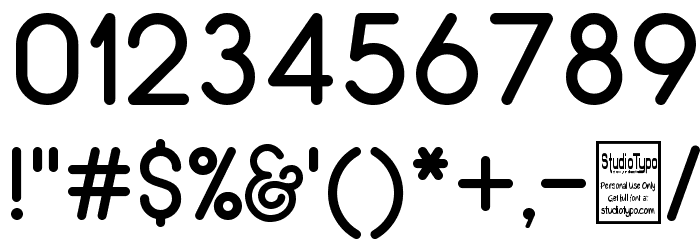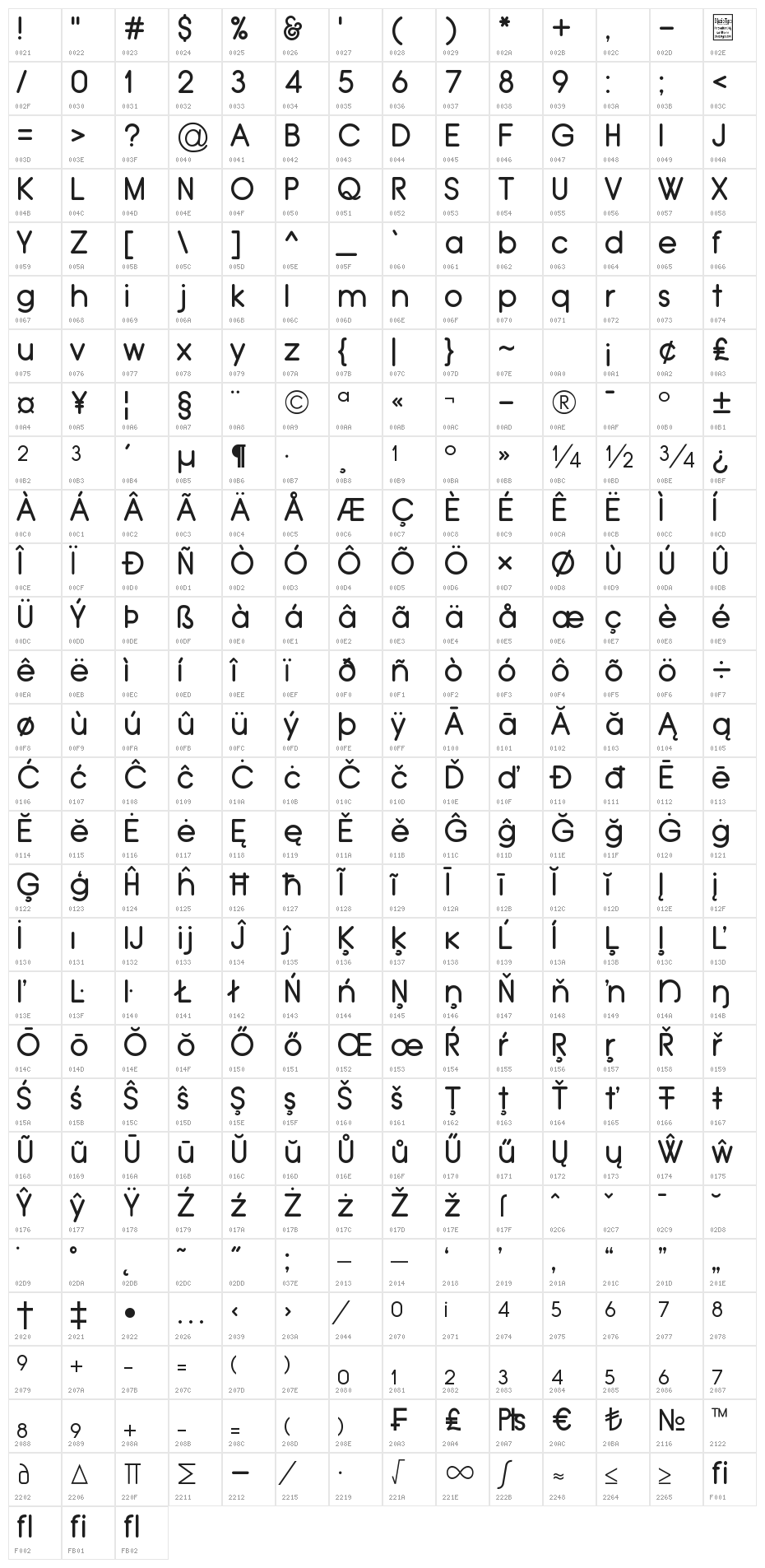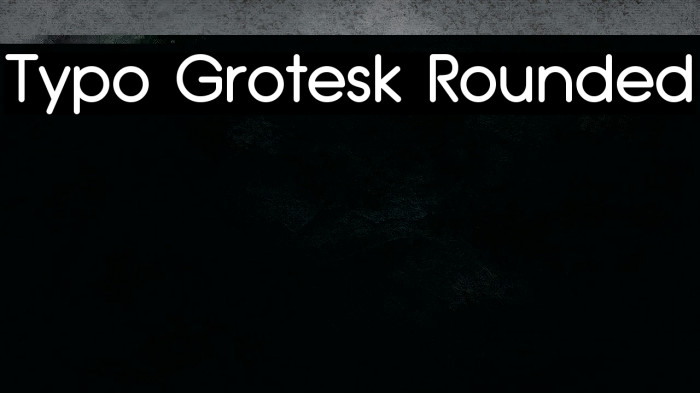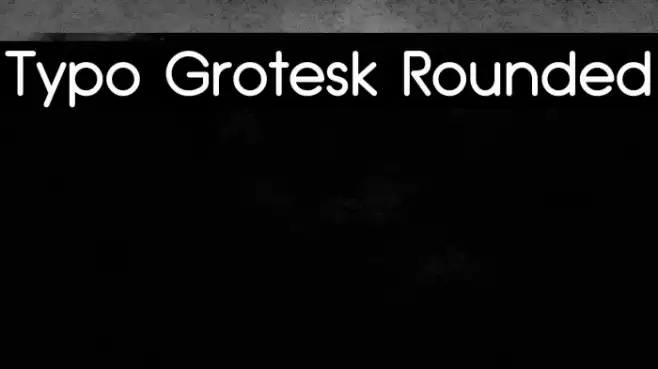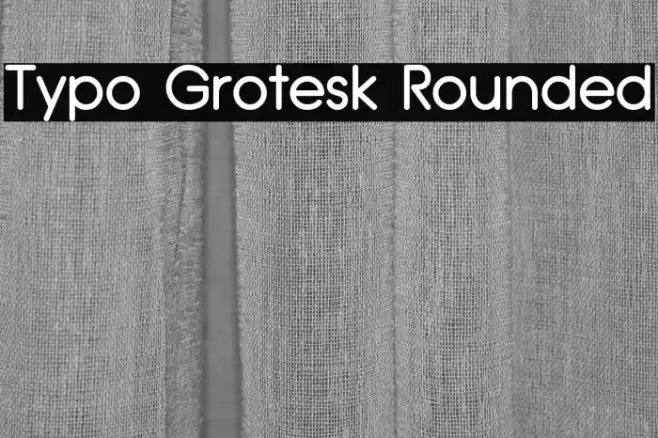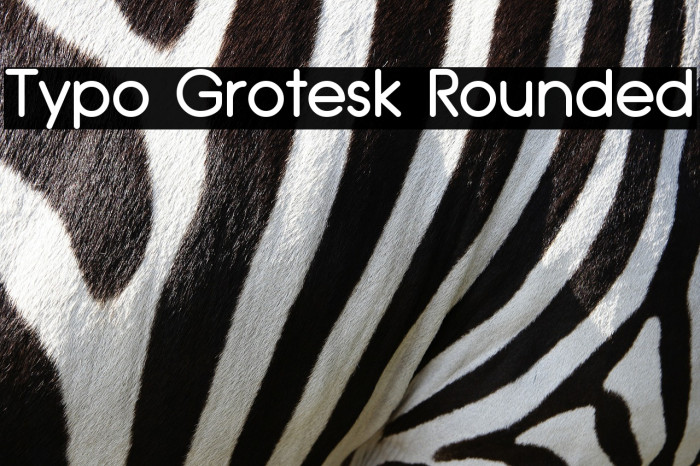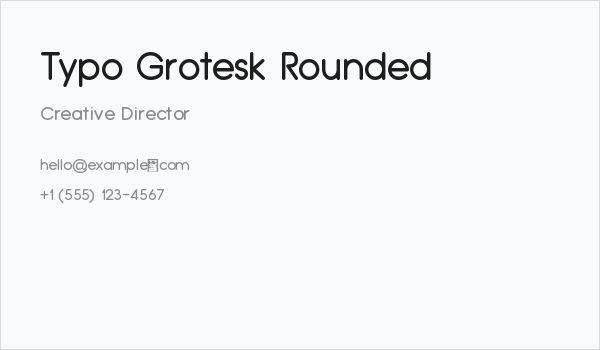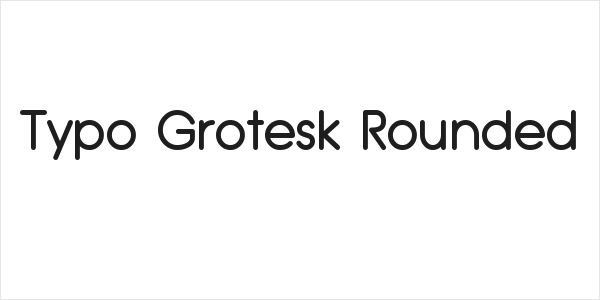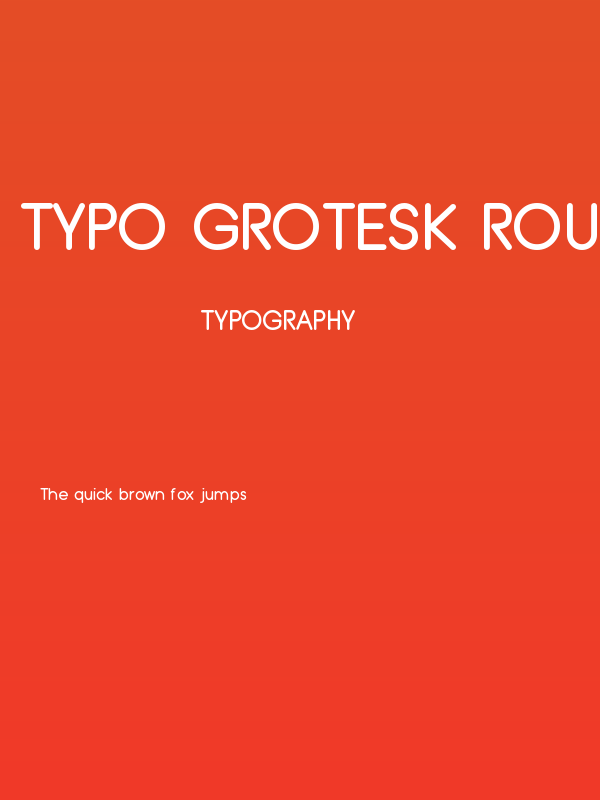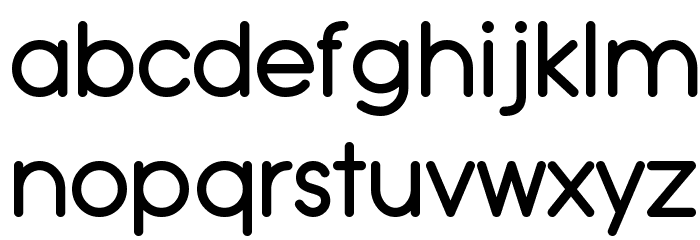
Typo Grotesk Rounded Font
Typo Grotesk Rounded Description
This font features a clean and modern design with rounded edges that give it a friendly and approachable appearance. The letters are evenly spaced, providing a balanced and harmonious look. The uppercase and lowercase characters maintain a consistent style, with smooth curves and a uniform stroke width. The numerals are clear and legible, making them suitable for various applications. Special characters are included, enhancing the font's versatility. Its simplicity and readability make it ideal for both digital and print media.